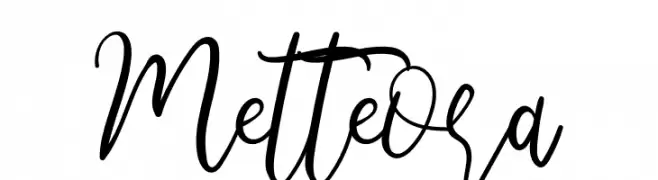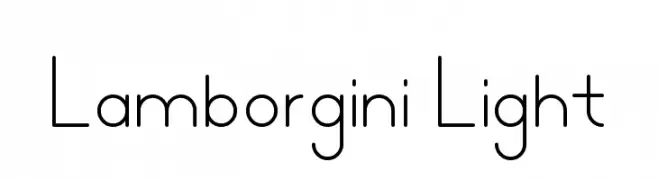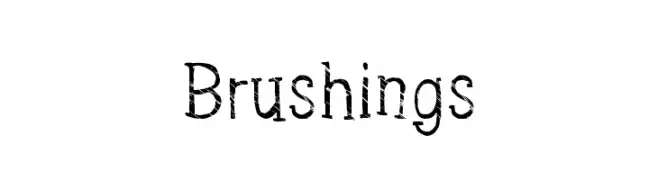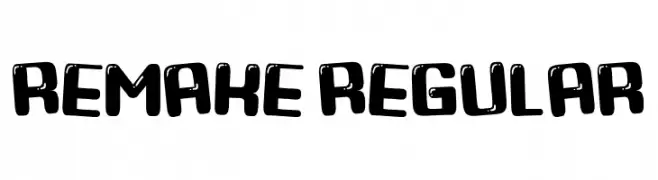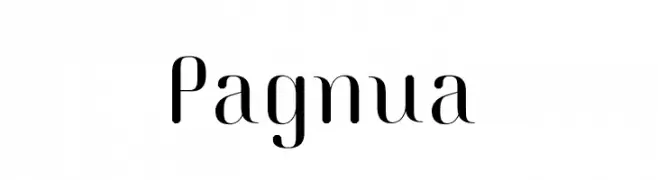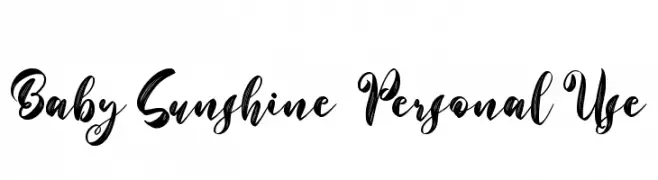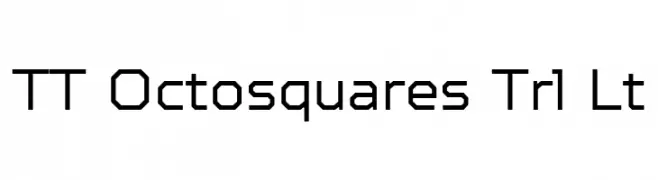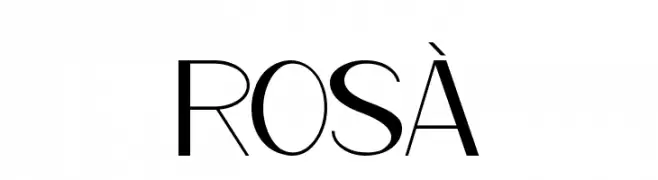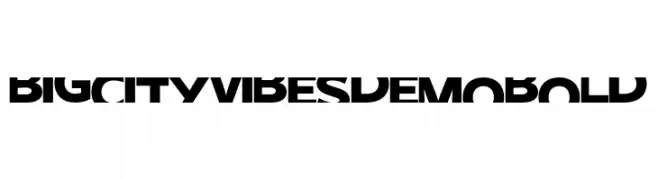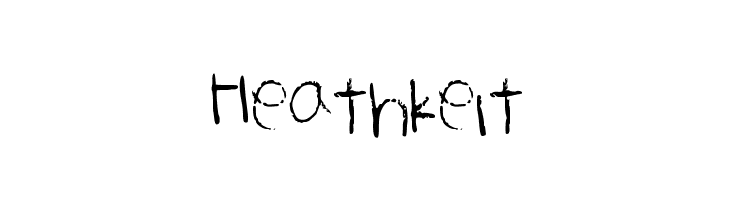
An elegant, flowing script font with medium contrast and smooth cursive letterforms.
A sleek, modern font with thin, uniform strokes and a geometric influence.
A textured, brush-stroke style font with a rustic, artistic feel.
A bold, playful font with a hand-drawn, vintage feel.
A modern-vintage font with elongated, narrow letterforms and rounded edges.
A bold, expressive script font with a lively, handwritten style.
A modern, geometric font with clean lines and angular shapes.
A casual, flowing script font with a modern, handwritten style.
A dynamic and elegant cursive script font with smooth connections and moderate contrast.
A modern, high-contrast font with geometric shapes and clean lines.